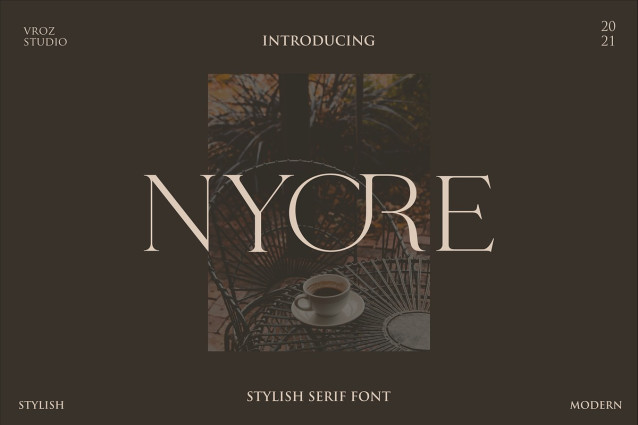
Nyore Font
Nyore Font will perfect for many project: fashion, magazines, logo, branding, photography, invitations, wedding invitation, quotes, blog header, poster, advertisements, postcard, book, websites, etc.